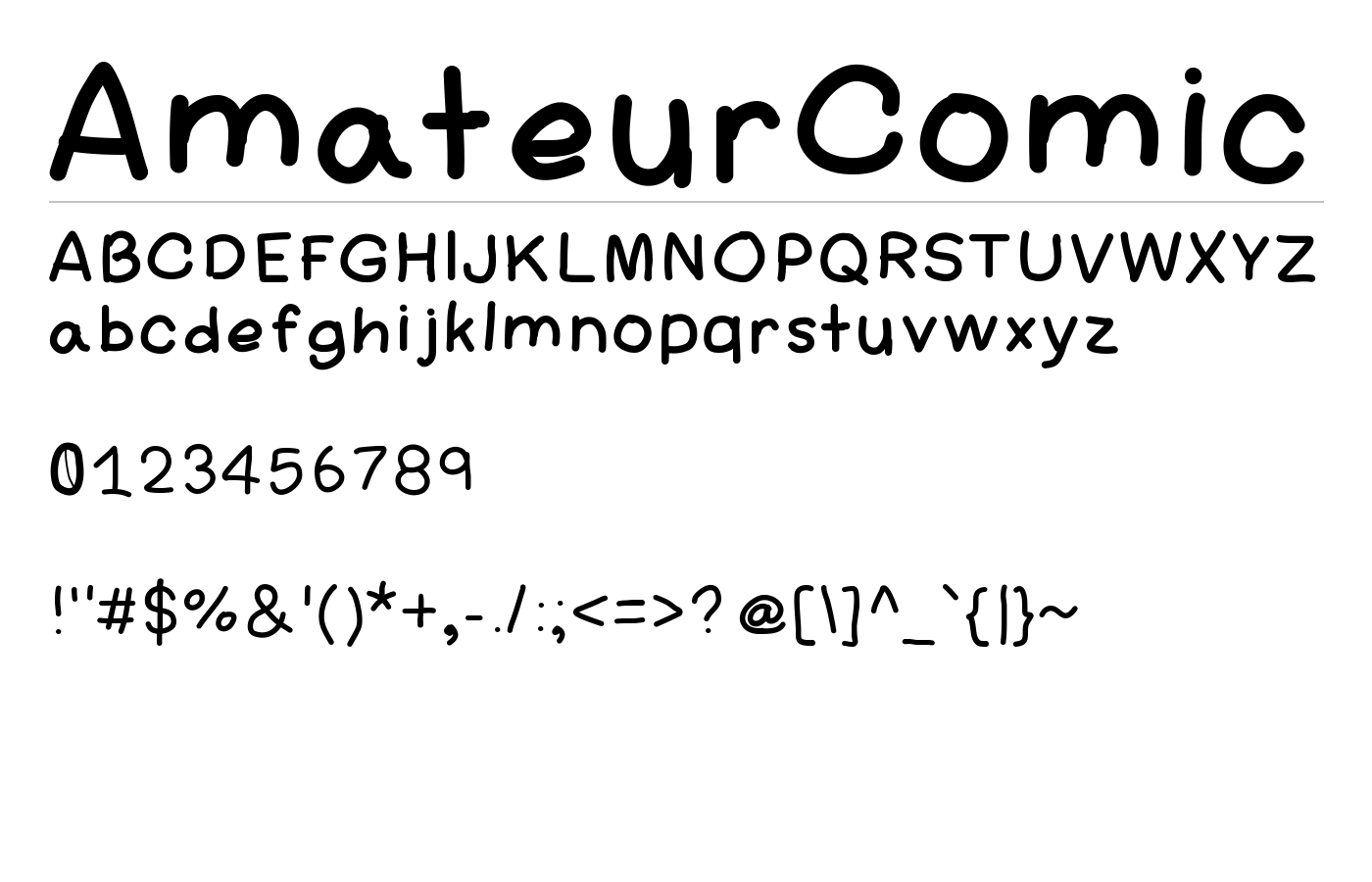
AmateurComic is a casual, handwritten sans serif font with a playful and informal feel. Its rounded, slightly uneven strokes and generous spacing give it a friendly, approachable personality ideal for comic strips, children’s books, and lighthearted designs. This font works well in headlines, logos, and any creative project that benefits from a fun, relaxed vibe.
AmateurComic Font
About AmateurComic Font